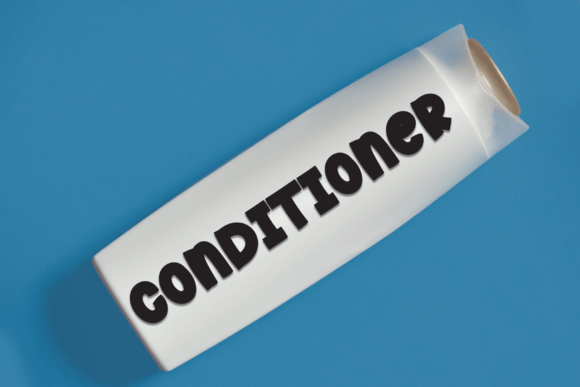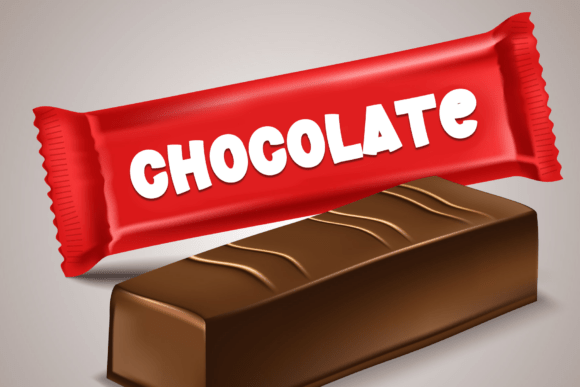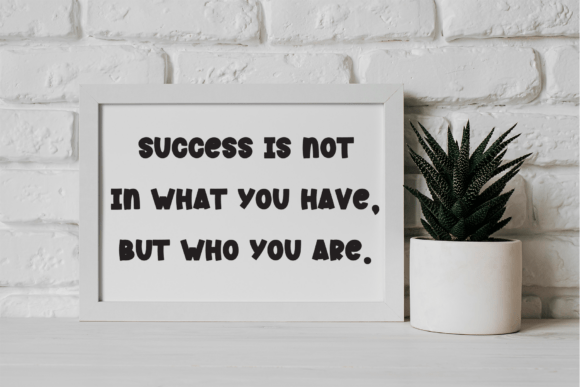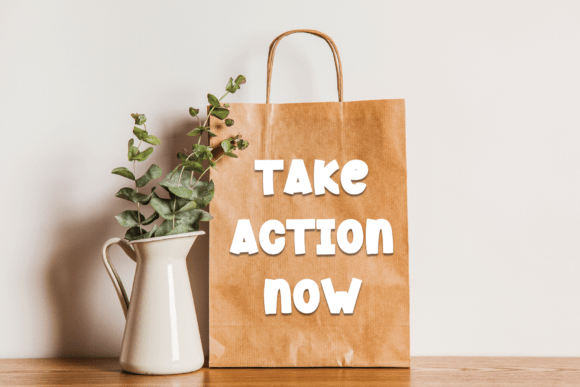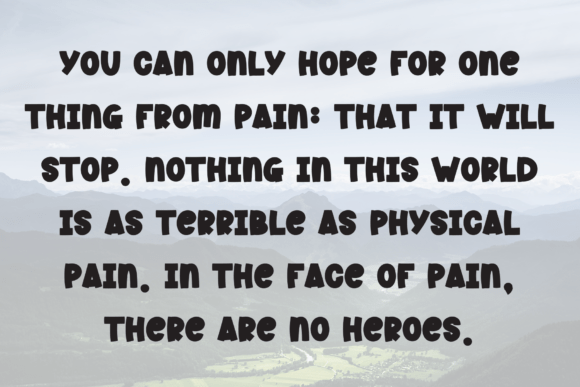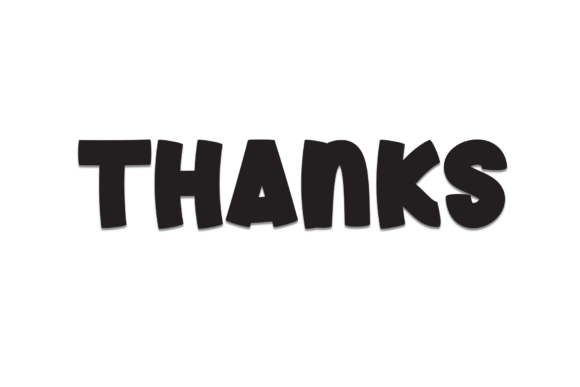
Introduction to Comic Grinch Font
Unleash high-energy fun with the Comic Grinch font, a thick and bubbly display typeface designed for maximum personality.
This Comic Grinch typeface features heavy, rounded letterforms with a playful shadow effect, creating a โmodern styleโ comic aesthetic that jumps off the page The Comic Grinch font is the ultimate choice for comic book titles, gaming branding, and youth-oriented event posters.
Key Features of Comic Grinch Font
Why Choose Comic Grinch Font?